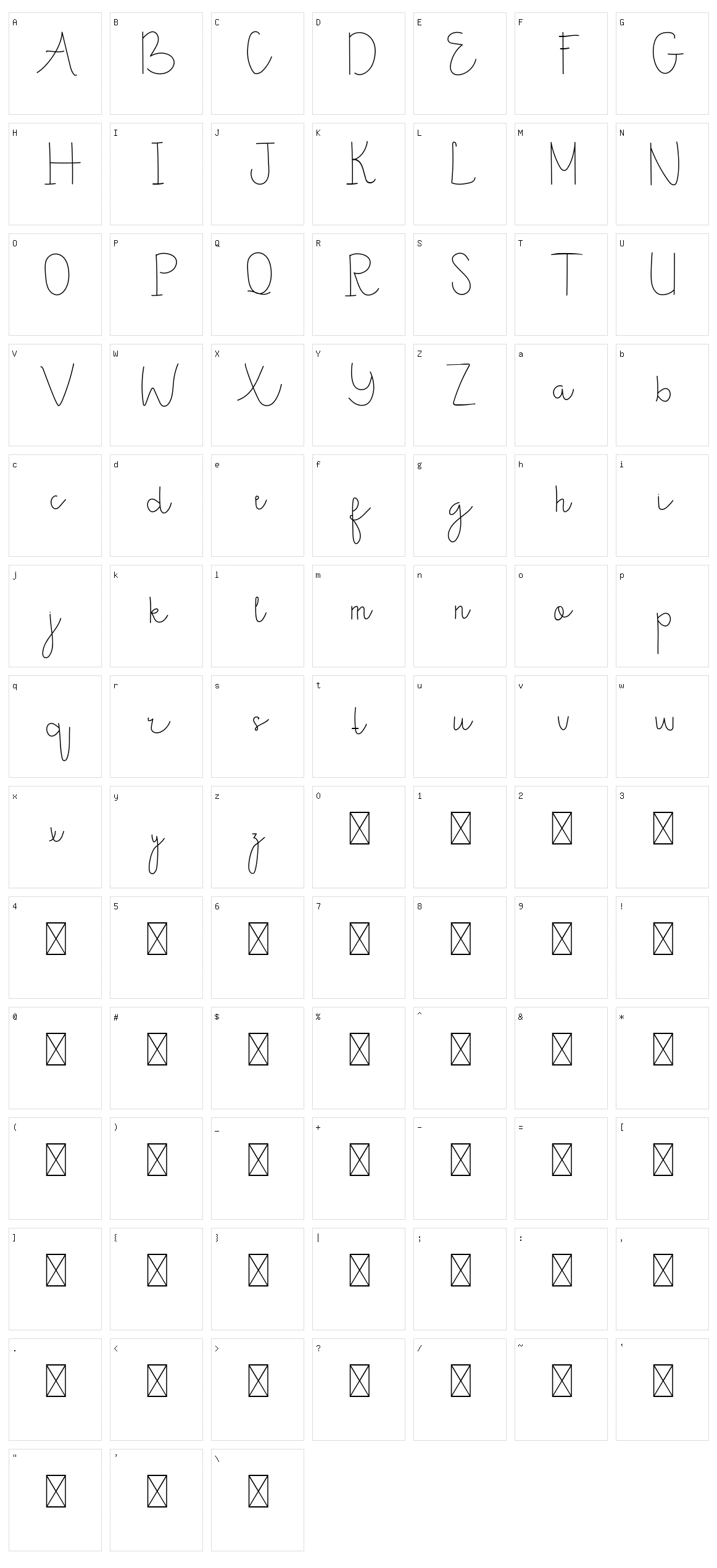
The free font Sunny November is carefully designed by Edric Studio, showcasing a thoughtful balance of creativity and usability and falls under the Script font style. When you download the ZIP file, it contains only 18.55 KB of font files, making it lightweight and quick to download. Please review the license details below to understand permitted usage and distribution rights. If license information is not available, we recommend using this font for personal projects only or contacting the author directly for commercial usage permissions.